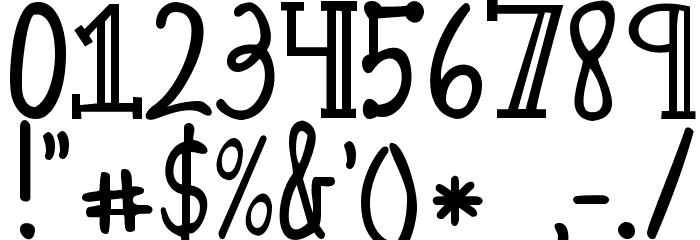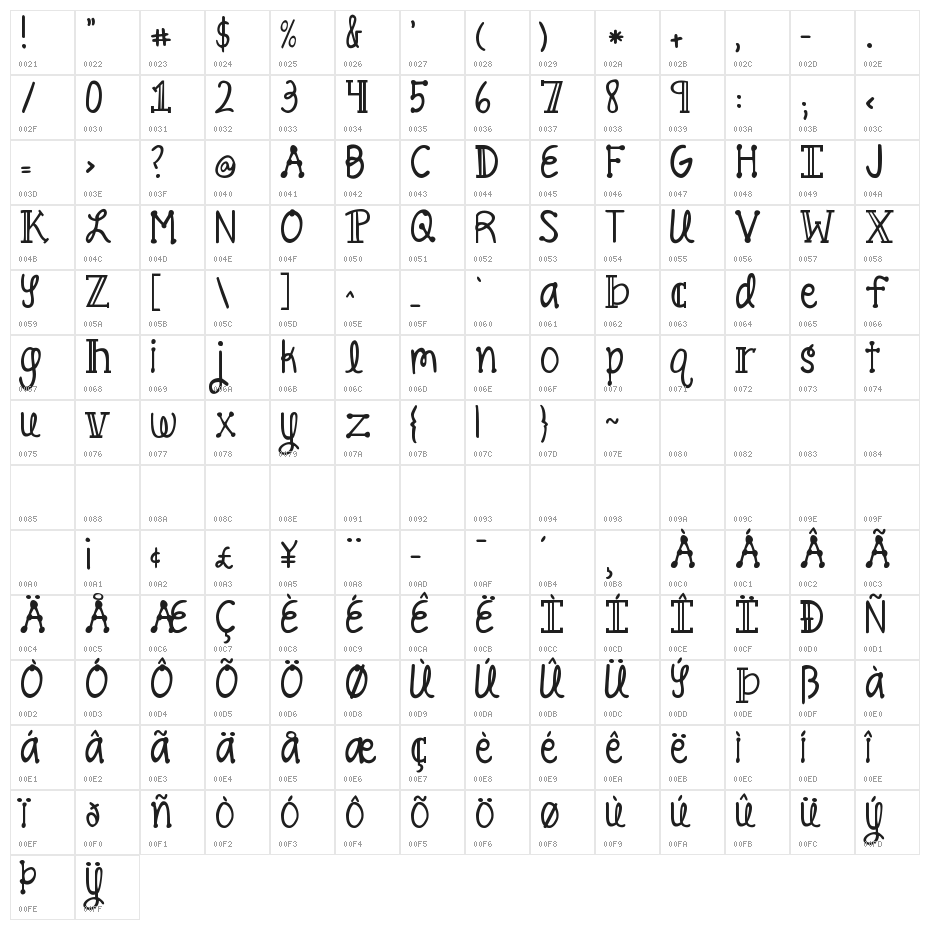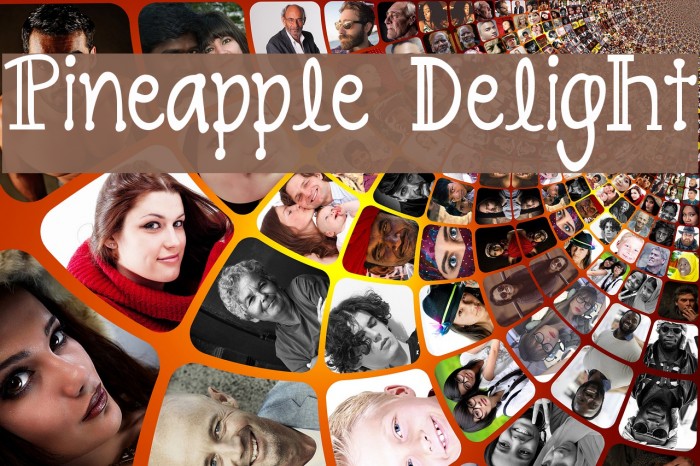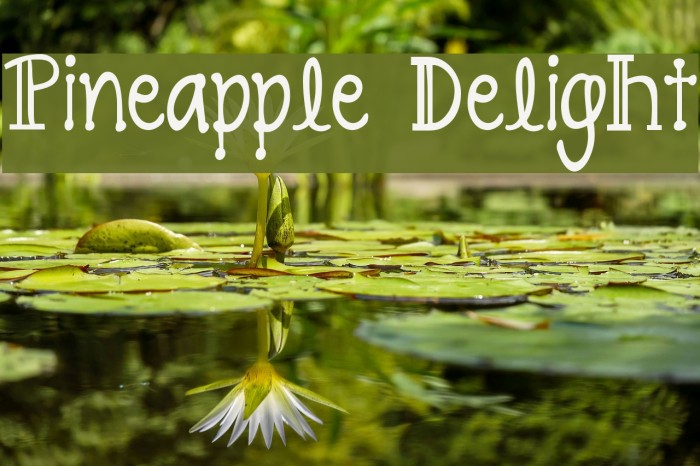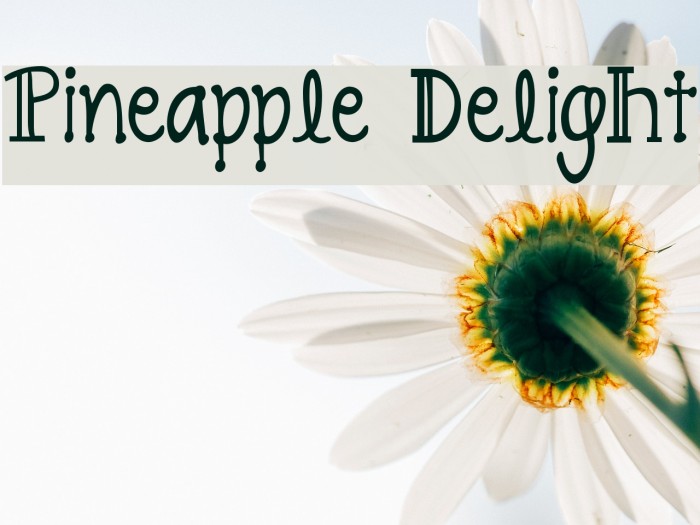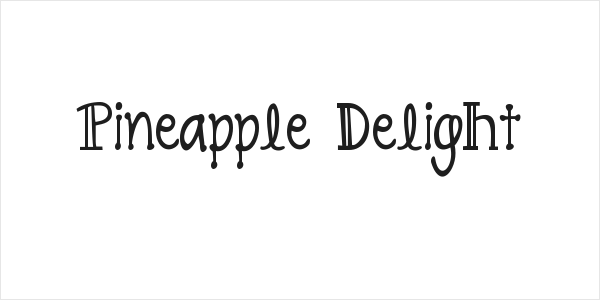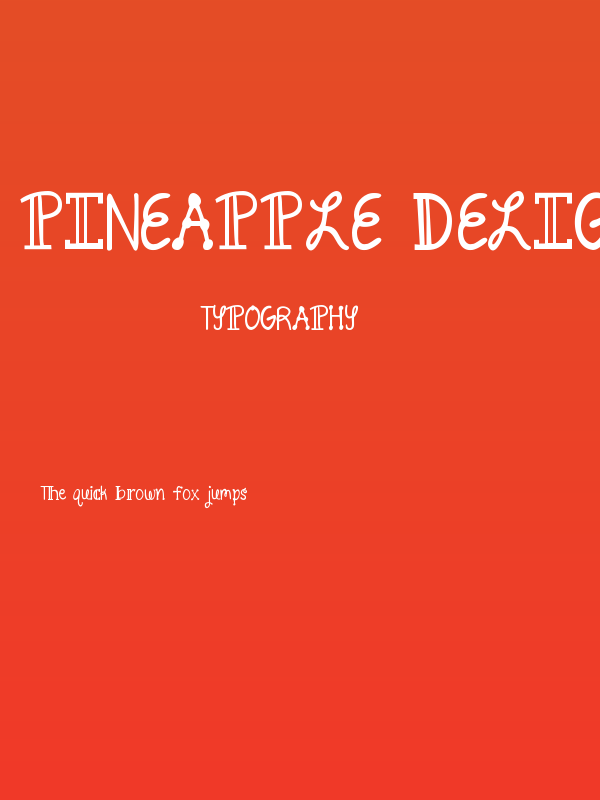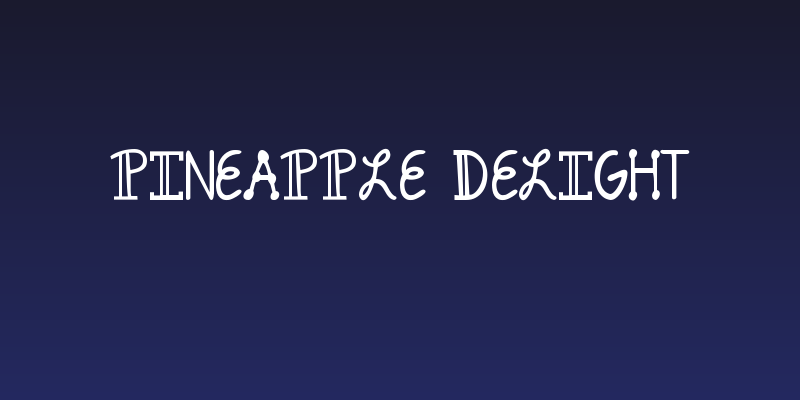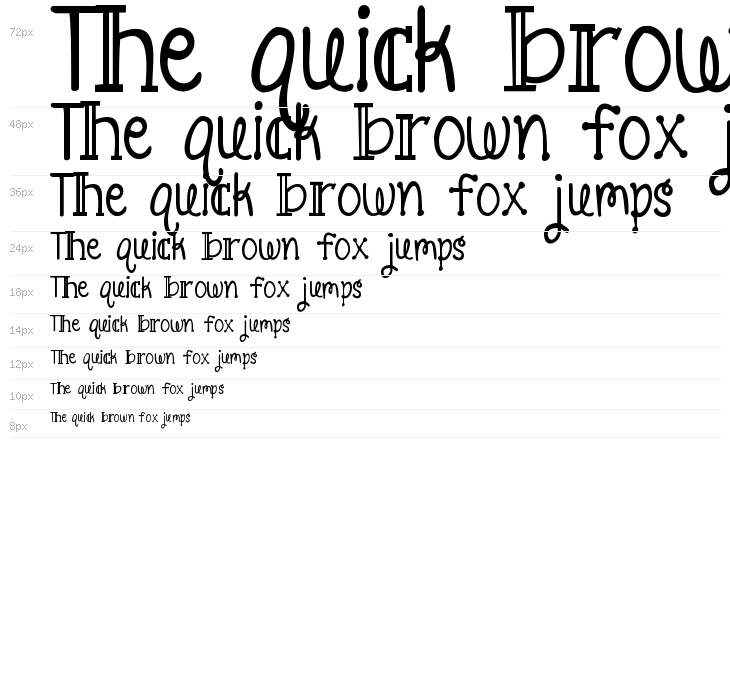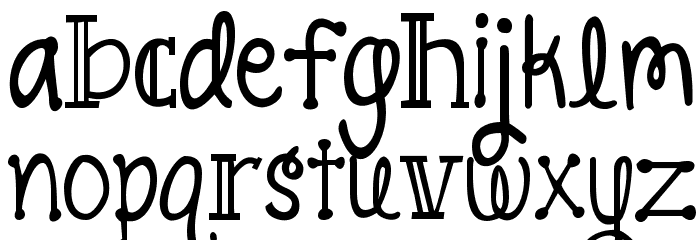
Pineapple Delight Font
Pineapple Delight Description
This playful and whimsical font features a unique blend of rounded and angular elements, creating a lively and engaging appearance. The uppercase letters are bold and distinct, with rounded terminals that add a touch of softness. The lowercase letters maintain a consistent style, with a slightly more playful and informal feel. Numbers are clear and legible, with a consistent weight that matches the letters. Special characters are creatively designed, maintaining the overall playful theme. The font's style is reminiscent of hand-drawn lettering, making it ideal for projects that require a fun and approachable aesthetic.
Overall StylePlayful, Whimsical
Proposed ProjectsIdeal for children's books, playful branding, greeting cards, and creative posters.